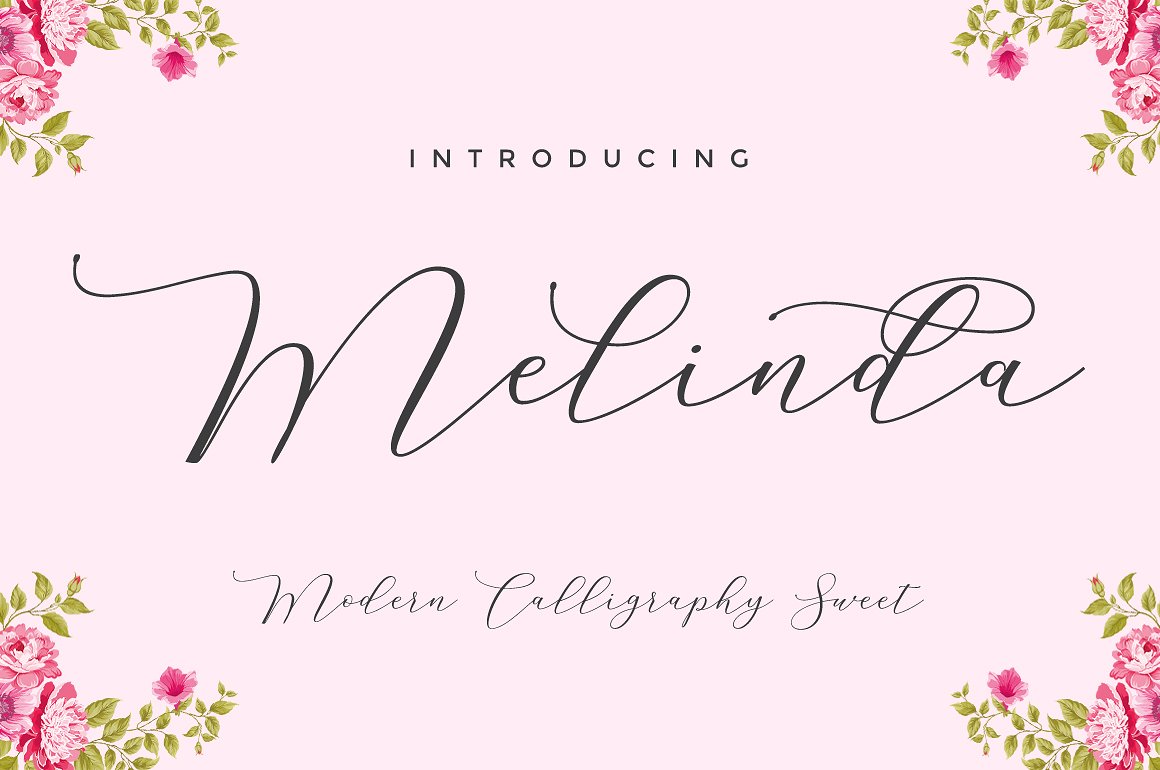
Melinda Calligraphy
Melinda Calligraphy Font
Melinda Script is a beautiful and interesting calligraphy handwriting font. You can see from scratches that give a realistic and modern style. font looks sweet and full of the best characters. you can use this font in your design product range like invitation, mockup, embossed, branding card and others.